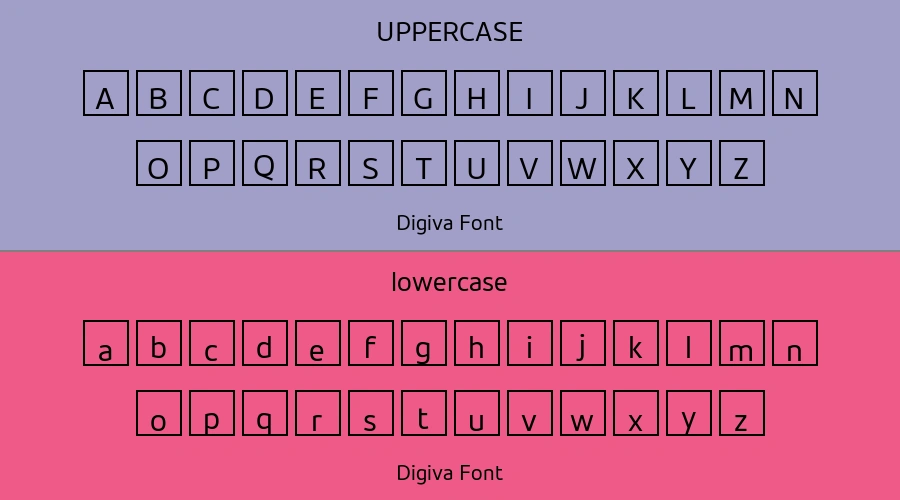
About Digiva Font
Digiva Font embodies typographic excellence through its masterful combination of clean lines and durability. Created for corporate reports, this typeface delivers exceptional accuracy and enduring appeal across all applications. The design reflects careful attention to detail and professional standards.
Advanced capabilities include distinctive tapered strokes and versatile initial forms, giving designers creative control. When used in section headers, Digiva Font exhibits remarkable scanning accuracy. The harmonious balance between aperture size and technical innovation sets this typeface apart.